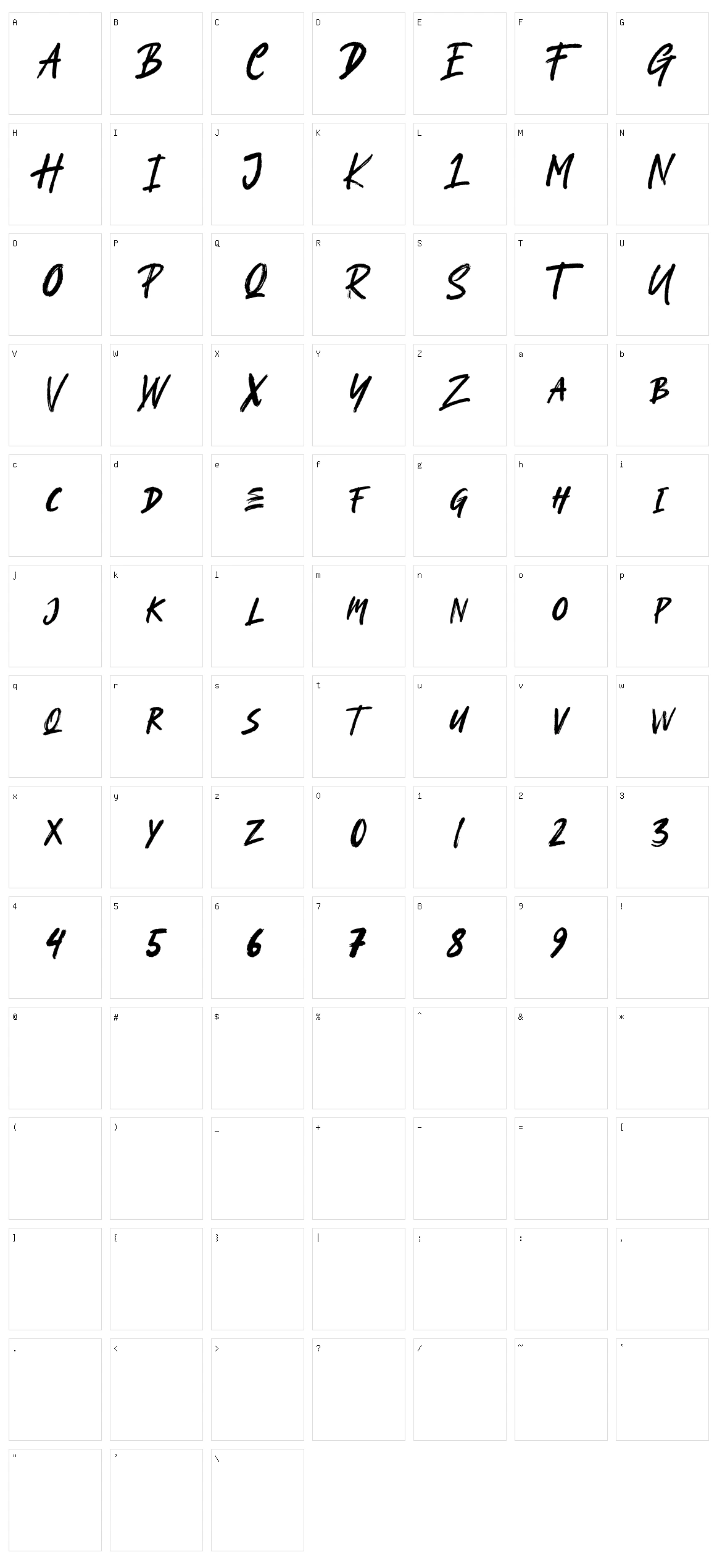
The free font Brightland is carefully designed by Weape Studio, showcasing a thoughtful balance of creativity and usability and falls under the Script font style. When you download the ZIP file, it contains only 114.81 KB of font files, making it lightweight and quick to download. Please review the license details below to understand permitted usage and distribution rights. If license information is not available, we recommend using this font for personal projects only or contacting the author directly for commercial usage permissions.